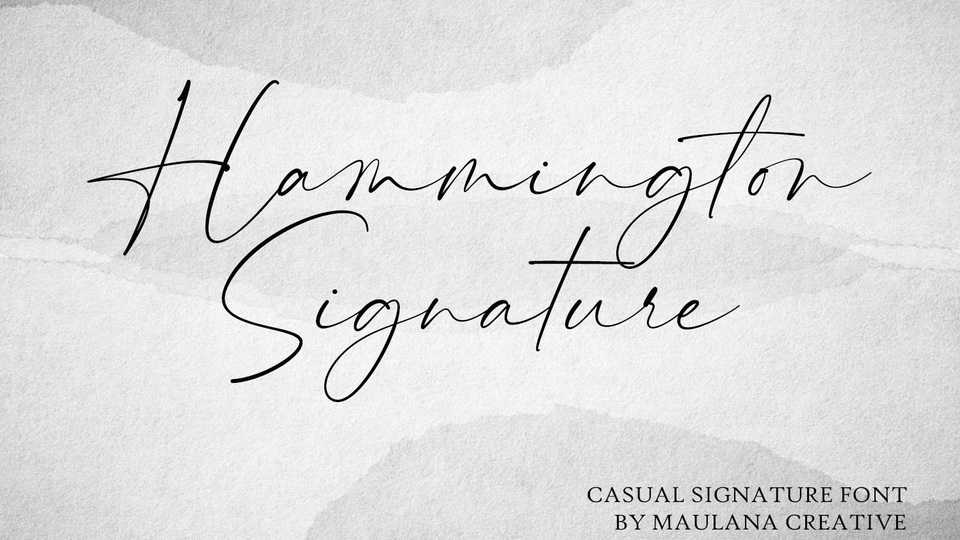
Download Hammington font, a casual signature script to give your designs an authentic handcrafted feel. Hammington is perfectly suited to signature, logo, typography quotes, magazine or book cover, website header, clothing, branding, packaging design and more.
Designer: Maulana Creative